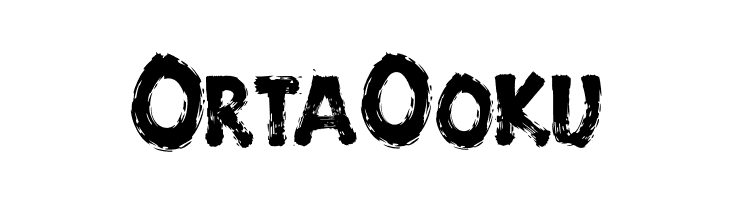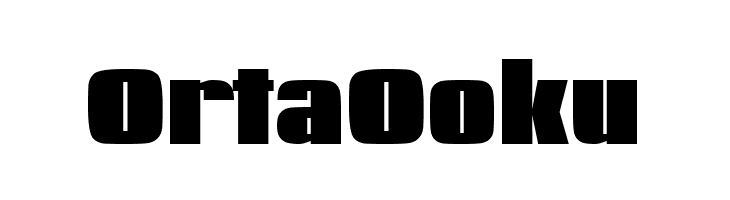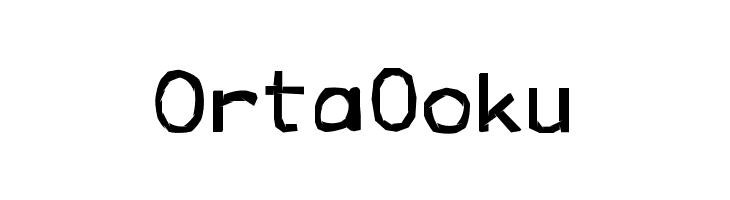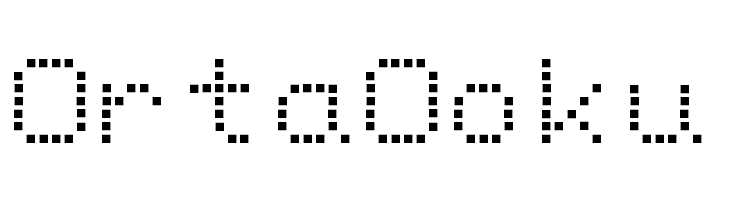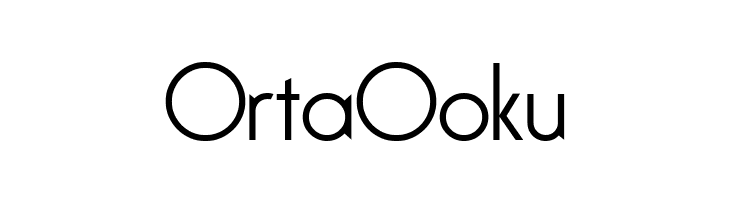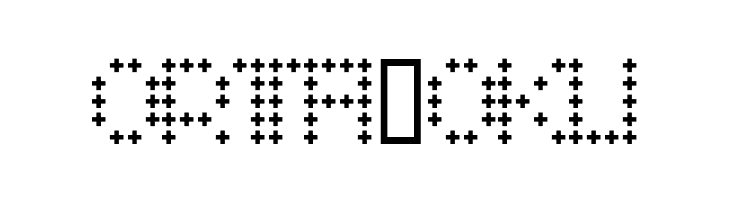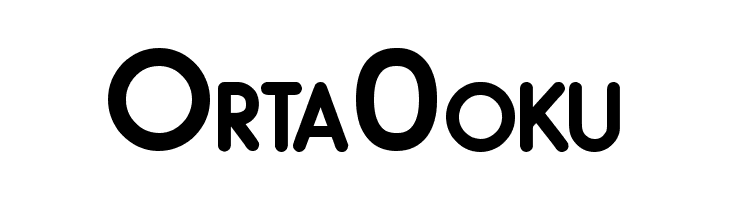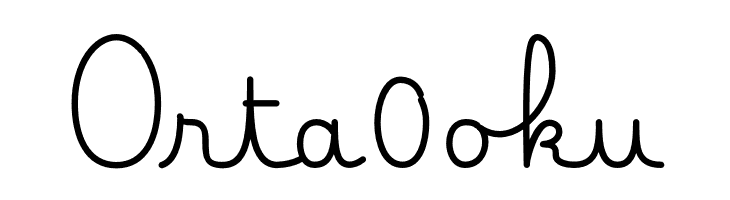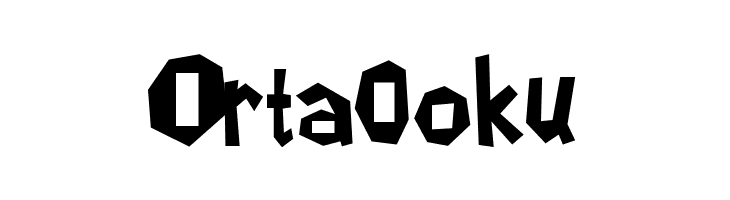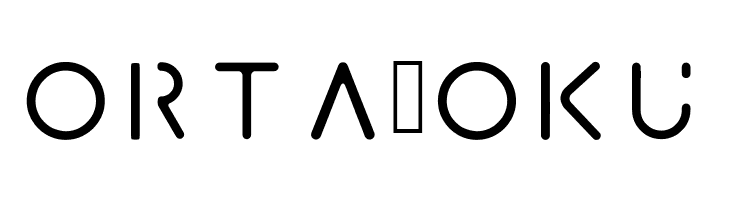
A clean, modern font with geometric influences and consistent stroke width.
A pixelated, decorative font made from plus signs, offering a retro digital look.
A bold, rounded font with smooth curves and a modern, friendly appearance.
A playful and elegant script font with a handwritten feel.
A bold, angular font with a playful, retro video game vibe.
A modern, geometric font with clean lines and circular cutouts.
A bold, brush-stroke inspired font with dynamic, artistic flair.
A bold, impactful font with thick strokes and minimal contrast, perfect for strong visual statements.
A bold, cut-out style font with a handcrafted, artistic look.
A dot matrix style font with a retro digital aesthetic.